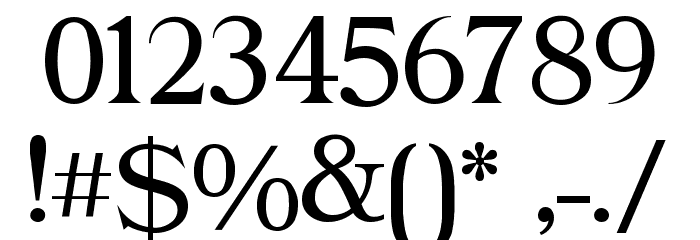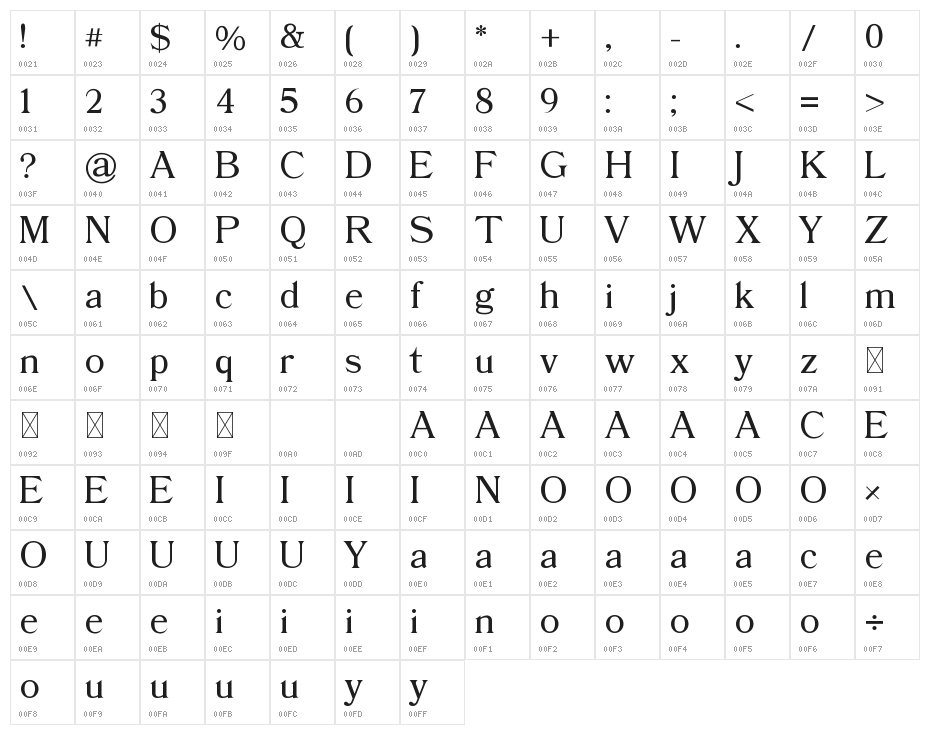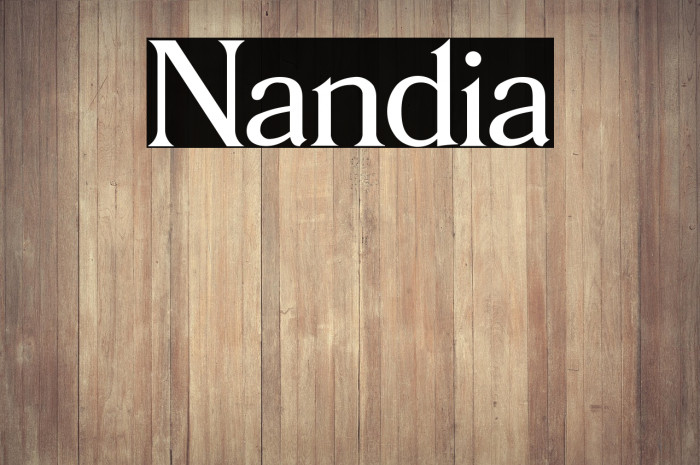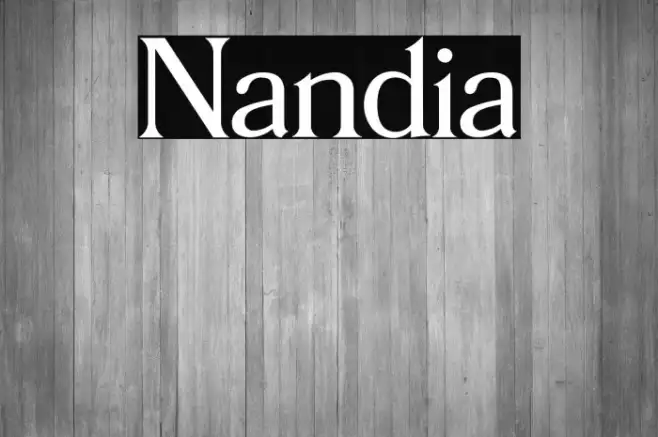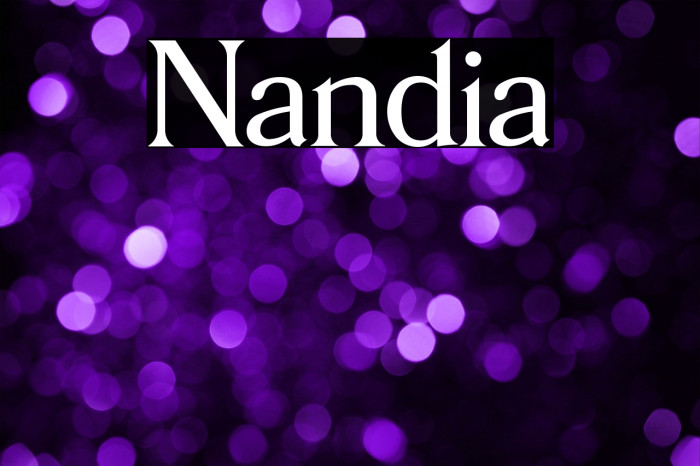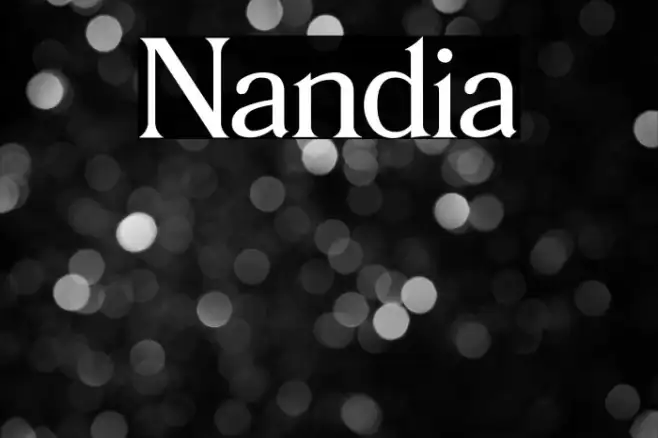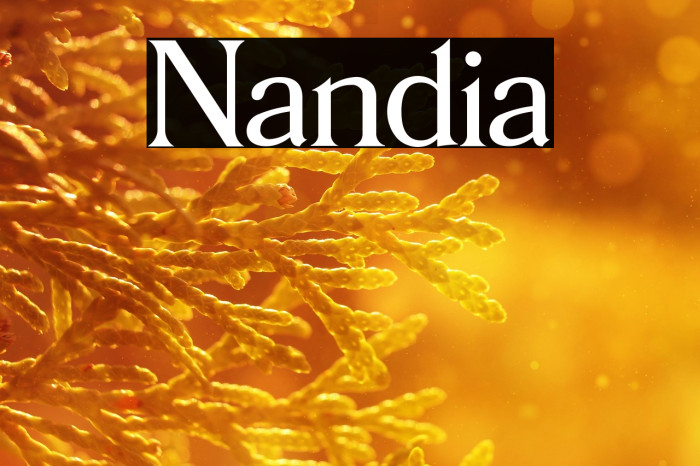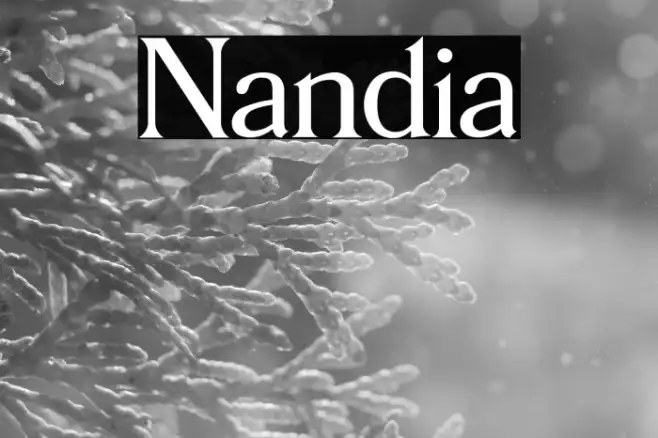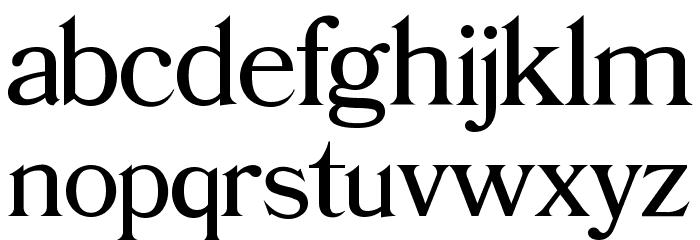
Nandia Font
Nandia Description
This font exhibits a classic serif style with elegant and slightly elongated serifs that add a touch of sophistication. The uppercase letters are bold and commanding, while the lowercase letters maintain a balanced and harmonious appearance. The numerals are clear and distinct, making them easily readable. Special characters are well-integrated, maintaining the overall aesthetic of the font. The stroke contrast is medium, providing a good balance between thick and thin lines, which enhances readability without sacrificing style. This font is versatile, suitable for both formal and creative applications.